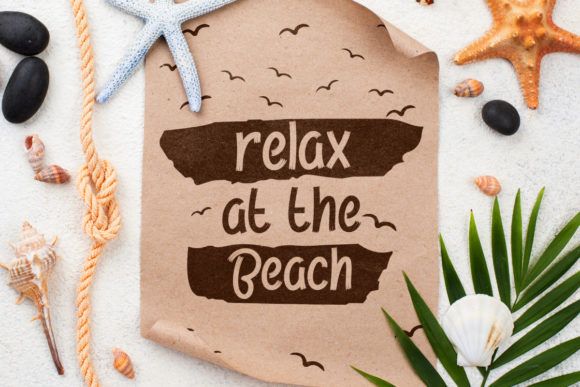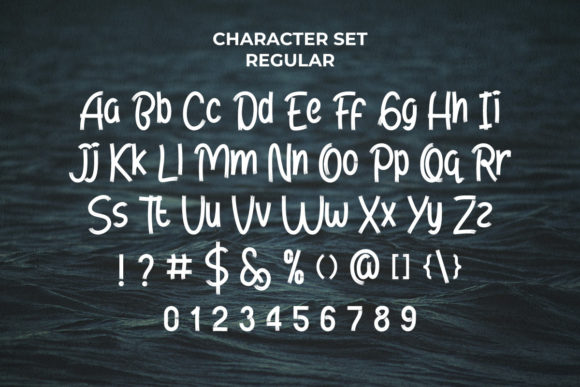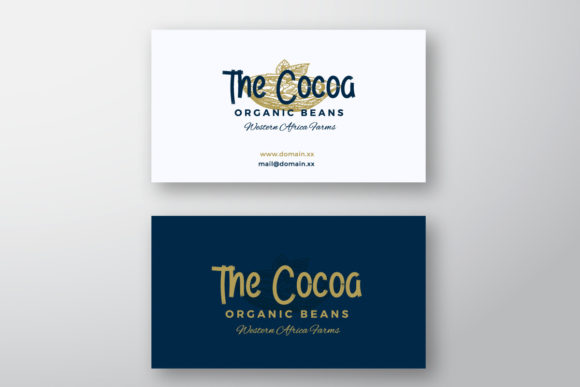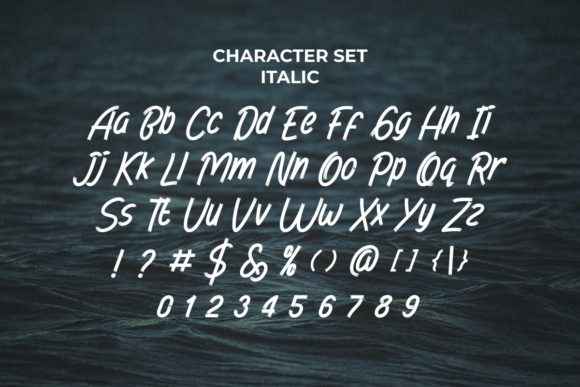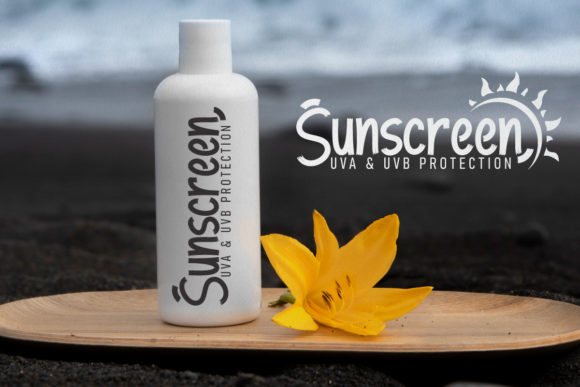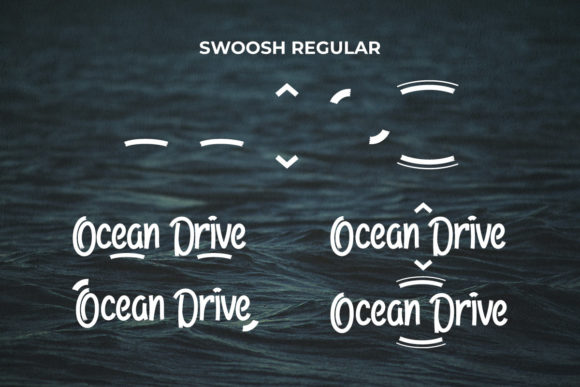
Introduction to Ocean Drive Font
Have you ever found yourself in the middle of a creative project, struggling to find the perfect design resource to elevate your work? The blank page stares back at you, and you know exactly what’s missing – a touch of personality, a dash of style, and a hint of fun. That’s where the Ocean Drive Font comes in, a cool, brushed, and fun display font that’s sure to breathe new life into your high-quality designs.
Whether you’re working on a branding project, creating labels for a product launch, or designing a special card for a loved one, the Ocean Drive Font is an excellent addition to your design arsenal. With its transparent background and free download option, you can add it confidently to your favorite creations and let yourself be amazed by the outcome generated.
Key Features of Ocean Drive Font
- High-quality design resource for creative projects, perfect for adding a touch of sophistication and elegance.
- Designed with a unique blend of modern and classic elements, making it a versatile choice for a variety of creative projects.
Honest Review: Ocean Drive Font
As a designer, I’m always on the lookout for high-quality design resources that can elevate my creative projects. The Ocean Drive Font is one such resource that caught my attention. Let’s dive in and see what it has to offer.
- ✨ Unique and stylish design aesthetic that’s perfect for modern branding and packaging
- ⚠️ Limited character set, which may not be suitable for longer texts or paragraphs
- ⚠️ Not suitable for very small font sizes, as it may become difficult to read
Overall, the Ocean Drive Font is a solid addition to any designer’s toolkit. While it may have some limitations, its unique design aesthetic and free download option make it a worthwhile resource for creative projects. With a little experimentation, I’m confident that you can unlock its full potential and take your designs to the next level.
Tips for Getting the Most Out of Ocean Drive Font
To get the most out of the Ocean Drive Font, use it for headings and titles to create a sense of hierarchy in your design. You can also experiment with different font sizes and styles to add visual interest.
Common Use Cases for Ocean Drive Font
The Ocean Drive Font is perfect for creative projects such as wedding invitations, business cards, and marketing materials. Its elegant and sophisticated design makes it ideal for any project that requires a touch of luxury and style.
Alternatives to Ocean Drive Font
Avenir is a high-quality sans-serif font designed by Adrian Frutiger. It’s ideal for creative projects that require a modern and sophisticated look. Avenir is a great alternative to Ocean Drive Font for designers who want a more versatile and readable font.
Compared to Ocean Drive Font, Avenir has a more geometric and streamlined design, making it perfect for headings and titles. It’s available for free download with a transparent background, making it easy to use in various design resources.
Playfair Display is an elegant and luxurious serif font that’s perfect for high-end design projects. It’s a great alternative to Ocean Drive Font for designers who want to add a touch of sophistication and refinement to their creative project.